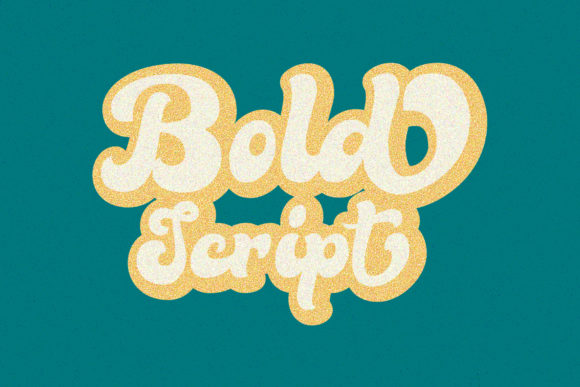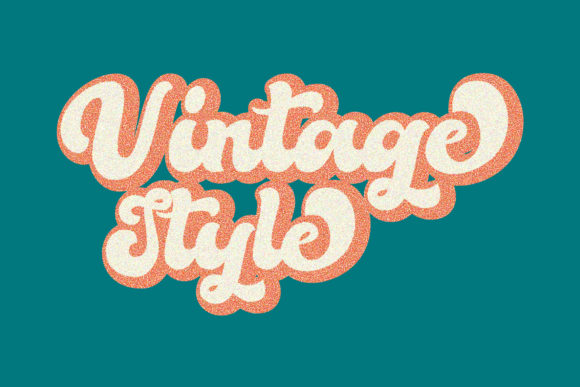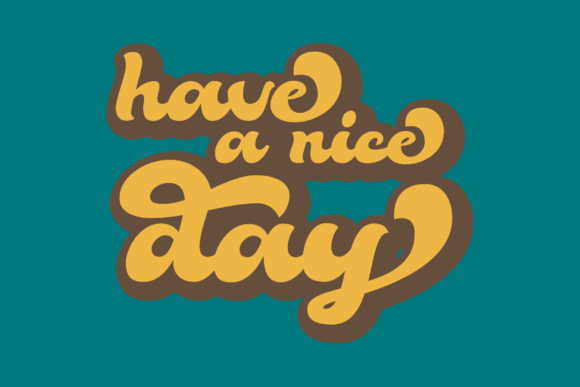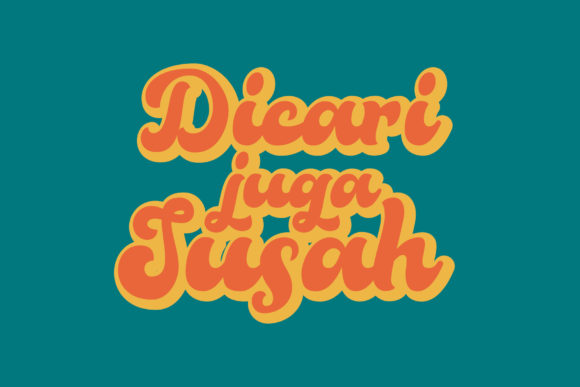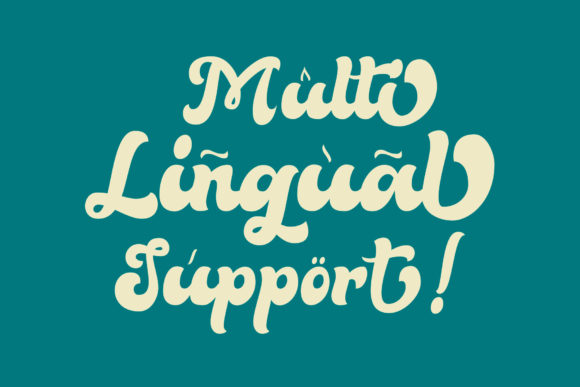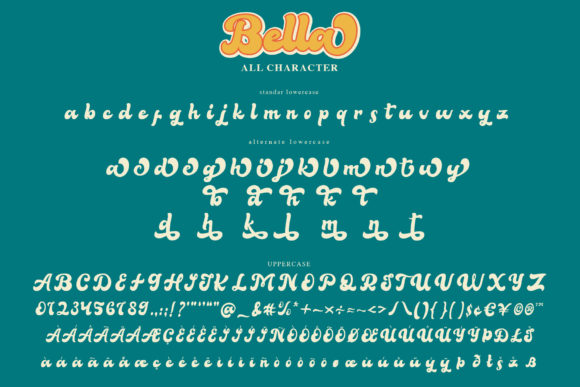
Bella Font: Elevate Your Designs with a Touch of Vintage Elegance
The Bella font is a stunning vintage script font that exudes a bold and classy style, perfect for designers and crafters looking to add a touch of sophistication to their projects. With its elegant and refined aesthetic, Bella is ideal for a wide range of applications, from album covers and quotes to branding and marketing materials.
The Characteristics of Bella Font
The Bella font boasts a unique blend of classic and modern elements, making it a versatile and eye-catching choice for any design project. Its key characteristics include:
- Bold and Classy Style: Bella’s bold and classy style makes it perfect for creating striking designs that demand attention.
- Vintage Script: The font’s vintage script style adds a touch of elegance and sophistication to any design.
- High Legibility: Despite its bold style, Bella remains highly legible, making it suitable for use in a variety of contexts.
Uses for Bella Font
The Bella font is incredibly versatile, and its uses are limited only by your imagination. Here are some popular applications for this beautiful font:
- Album Covers: Bella’s bold and classy style makes it perfect for creating eye-catching album covers that stand out from the crowd.
- Quotes and Typography: The font’s elegant and refined aesthetic makes it ideal for showcasing inspirational quotes and typography.
- Branding and Marketing: Bella’s unique style makes it a great choice for branding and marketing materials, such as logos, posters, and advertisements.
- Wedding and Event Stationery: The font’s vintage script style makes it a popular choice for wedding and event stationery, including invitations, programs, and place cards.
Tips for Using Bella Font
To get the most out of the Bella font, here are some tips to keep in mind:
- Use it Sparingly: Bella’s bold style can be overwhelming if overused. Use it sparingly to create emphasis and add visual interest to your designs.
- Pair it with Other Fonts: Bella pairs well with a variety of other fonts, including sans-serif and serif fonts. Experiment with different combinations to find the perfect look for your project.
- Adjust the Size and Color: Bella’s bold style can be adjusted to suit your needs. Experiment with different sizes and colors to find the perfect look for your project.
Why Choose Bella Font?
With so many fonts to choose from, why choose Bella? Here are just a few reasons why Bella font stands out from the crowd:
- Unique Style: Bella’s vintage script style is truly unique and eye-catching.
- High Quality: The font is designed to high standards, ensuring that it looks great in any context.
The Bella font is a stunning vintage script font that offers a bold and classy style perfect for a wide range of design projects. With its elegant and refined aesthetic, Bella is ideal for designers and crafters looking to add a touch of sophistication to their work. Whether you’re creating album covers, quotes, or branding materials, Bella is a versatile and eye-catching choice that’s sure to impress.